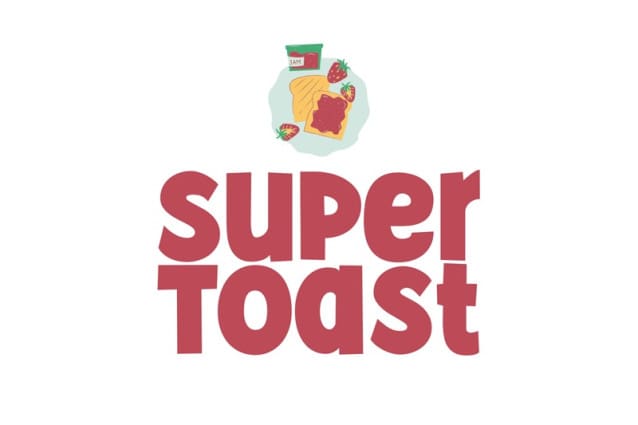
Super Toast Font
Super Toast Font, a font so extraordinarily playful it’ll have your words dancing on the page. With its neat and joyful personality, this font will enhance any project you wish to create!